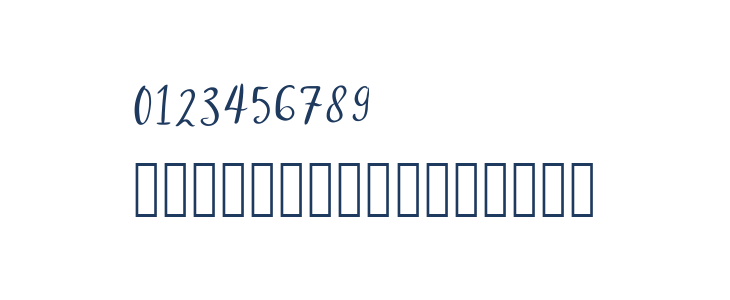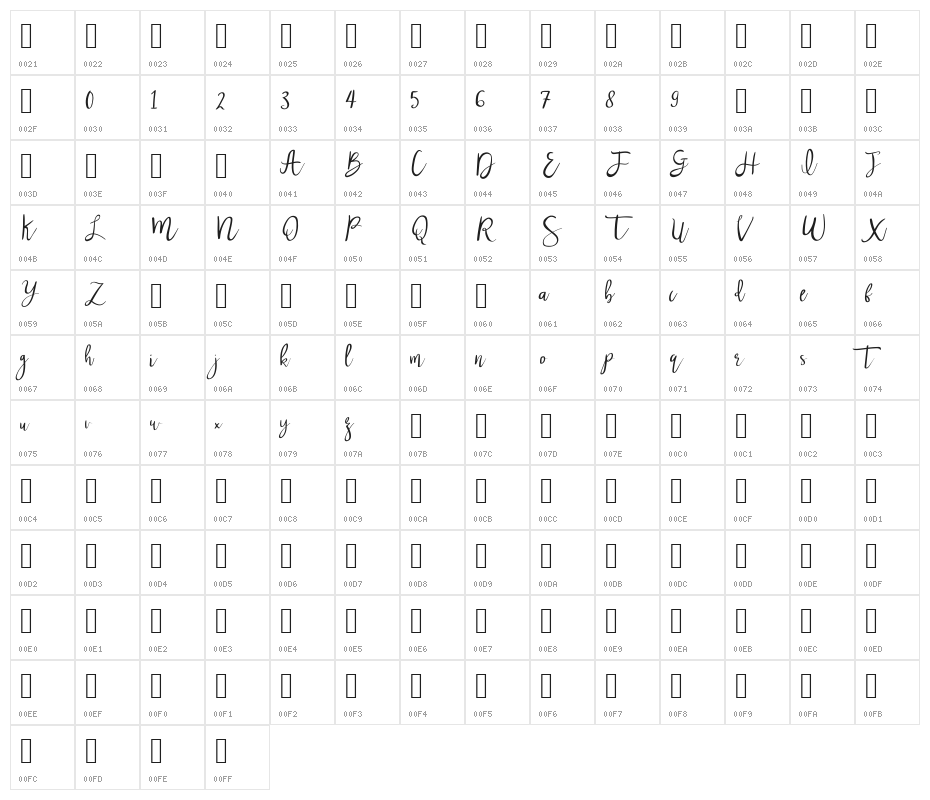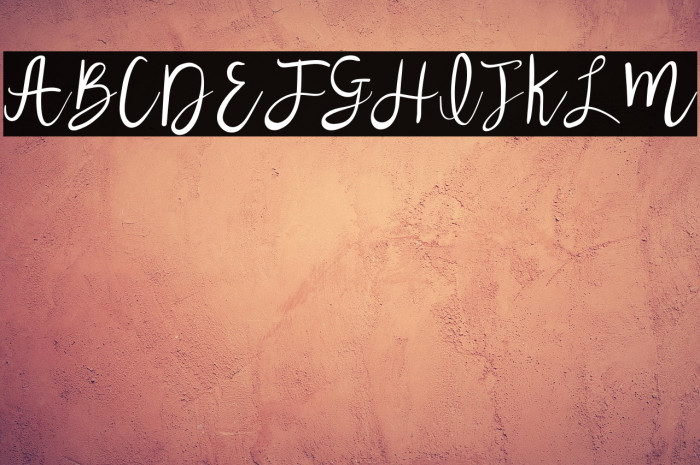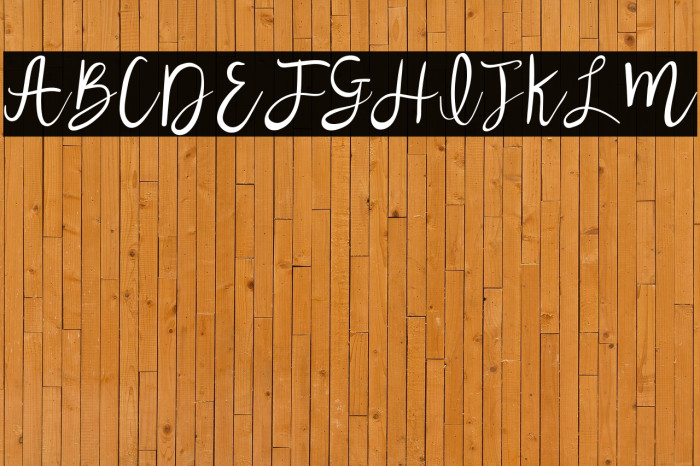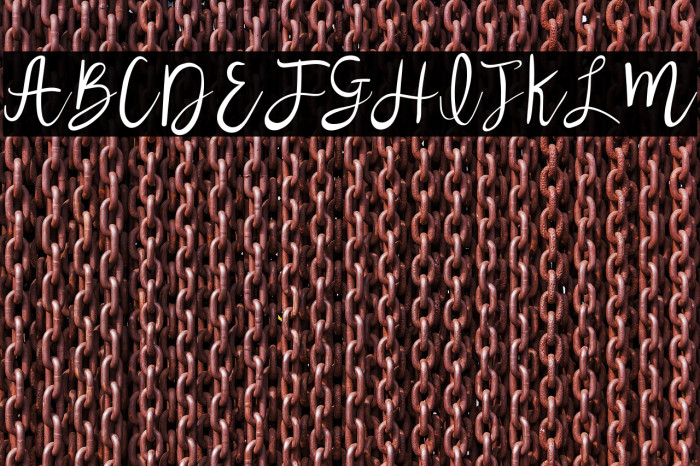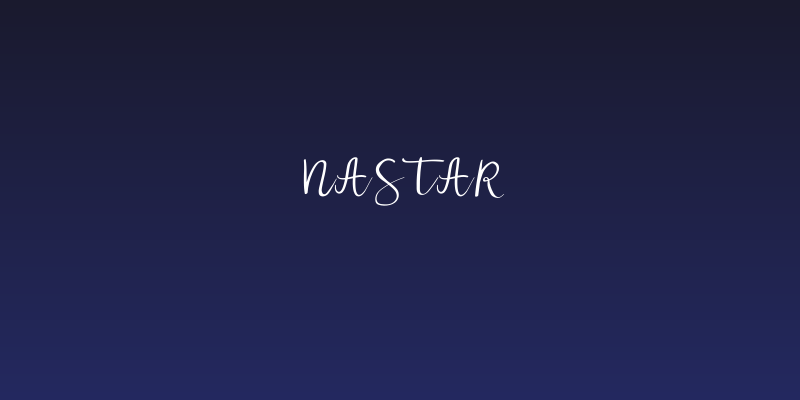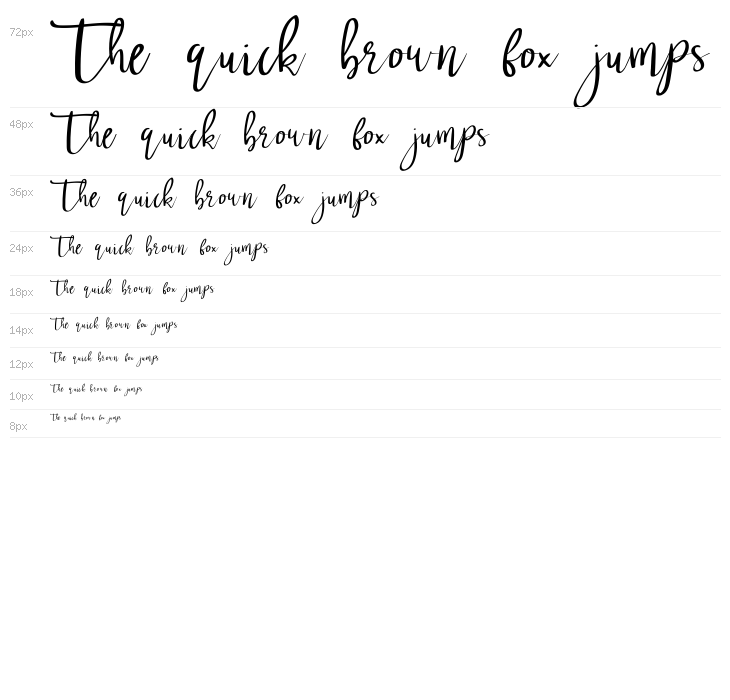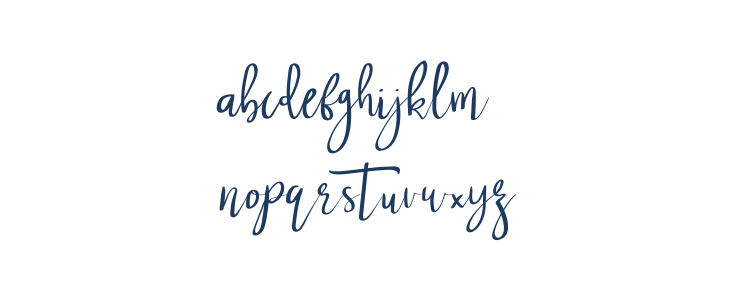
Nastar Font
Nastar Description
This font features a flowing, cursive style with elegant loops and swashes, giving it a handwritten appearance. The uppercase letters are bold and expressive, while the lowercase letters maintain a consistent fluidity. The numbers are clear and legible, matching the overall aesthetic. The font's playful yet sophisticated design makes it suitable for a variety of creative projects. It has a medium contrast in stroke thickness, adding to its dynamic look. The character spacing is normal, allowing for readability without compromising its artistic flair.
| Proposed Projects | Ideal for wedding invitations, greeting cards, branding, and social media graphics. |